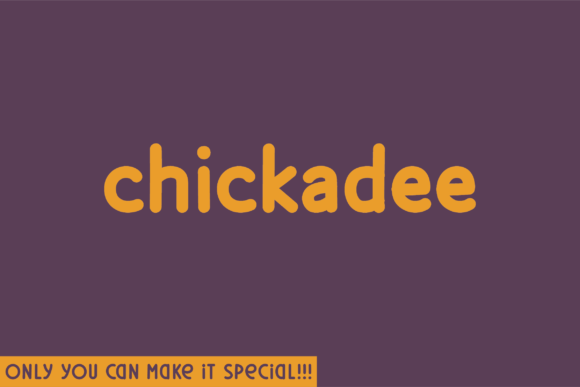
Step into the world of Chickadee Font, a sans serif masterpiece crafted by Hanna Bie. This bold and distinctive font is not just an aesthetic choice but a gateway to improving your study experience.
Unlock a World of Clarity and Efficiency:
Dive into the realm of knowledge with Chickadee Font, designed to enhance your note-taking and study sessions. Its meticulously crafted characters provide exceptional clarity, guiding your eyes effortlessly across the page. Say goodbye to scribbled notes and hello to a streamlined learning experience.
A Symphony of Organization:
Transform your study notes into works of art with Chickadee Font. Its unique letterforms and spacing create a visually appealing layout, making it easier to organize and retain information. Embrace a structured study environment that invites focus and understanding.
The Key to Memorable Studying:
Unlock the secrets of effective studying with Chickadee Font. Research has shown that visually stimulating fonts can improve memory and retention. Embark on a studious journey where every word carries weight and every concept sticks with you.
Express Yourself with Versatility:
Chickadee Font is more than just a study companion; it's a creative chameleon. Its versatility extends beyond notes, making it an ideal choice for quotes, t-shirts, logos, social media, and any design that demands a touch of classic elegance. Unleash your creativity and let Chickadee Font elevate your designs.